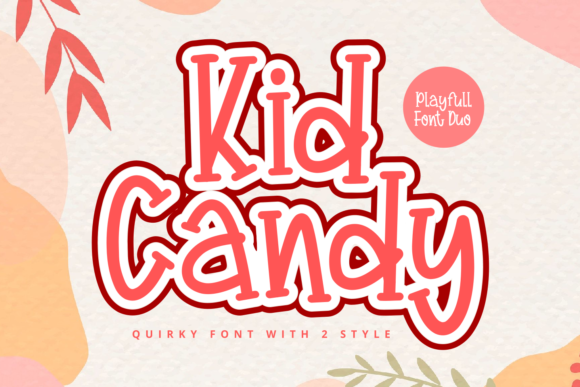
Kid Candy Font: A Sweet and Friendly Display Font for Your Design Needs
Kid Candy Font is a delightful and charming display font that is sure to bring a smile to your face. Its sweet and friendly design makes it perfect for a variety of creative projects, from fun and playful themes to more sophisticated and elegant designs. In this article, we’ll take a closer look at Kid Candy Font, its features, and how you can use it to elevate your designs.
What is Kid Candy Font?
Kid Candy Font is a display font designed to capture the essence of childhood fun and playfulness. Its unique and quirky design makes it stand out from other fonts, making it perfect for designs that require a touch of whimsy and humor. The font is carefully crafted to be easy to read and understand, making it suitable for a wide range of design applications.
Key Features of Kid Candy Font
- Sweet and Friendly Design: Kid Candy Font boasts a sweet and friendly design that is sure to appeal to kids and adults alike.
- Funny and Cheerful Themes: The font is perfect for designs that require a playful and cheerful touch, such as kids’ party invitations, children’s books, and more.
- Versatile: Kid Candy Font can be used in various design contexts, including clothes, logos, posters, invitations, crafts, and more.
- Ease of Use: The font is easy to read and understand, making it suitable for designs that require clear communication.
How to Use Kid Candy Font
Kid Candy Font is a versatile font that can be used in a variety of design projects. Here are some ideas to get you started:
Design Ideas Using Kid Candy Font
- Kids’ Party Invitations: Create fun and playful invitations for kids’ parties using Kid Candy Font.
- Children’s Books: Use Kid Candy Font to create engaging and interactive children’s books that kids will love.
- Clothing and Apparel: Design fun and colorful clothing and apparel for kids using Kid Candy Font.
- Logos and Branding: Create a sweet and friendly logo for your business or brand using Kid Candy Font.
- Posters and Flyers: Design eye-catching posters and flyers using Kid Candy Font to promote your event or product.
Why Choose Kid Candy Font?
There are many fonts available that offer similar features to Kid Candy Font. So, why choose Kid Candy Font? Here are some reasons:
Reasons to Choose Kid Candy Font
- Unique Design: Kid Candy Font has a unique and quirky design that sets it apart from other fonts.
- Ease of Use: The font is easy to read and understand, making it suitable for designs that require clear communication.
- Versatility: Kid Candy Font can be used in various design contexts, making it a great addition to your font library.
- Fun and Playful: Kid Candy Font is perfect for designs that require a touch of whimsy and humor.
Tips for Using Kid Candy Font Effectively
Here are some tips for using Kid Candy Font effectively:
Tips for Using Kid Candy Font Effectively
- Use it Sparingly: Use Kid Candy Font sparingly to avoid overwhelming your design.
- Pair it with Other Fonts: Pair Kid Candy Font with other fonts to create visual interest and hierarchy.
- Experiment with Colors: Experiment with different colors to find the perfect combination that works with Kid Candy Font.
- Keep it Simple: Keep your design simple and clean to ensure that Kid Candy Font stands out.
Kid Candy Font is a sweet and friendly display font that is perfect for designs that require a touch of whimsy and humor. Its unique and quirky design makes it stand out from other fonts, making it a great addition to your font library. With its ease of use, versatility, and fun and playful design, Kid Candy Font is sure to meet your design needs.